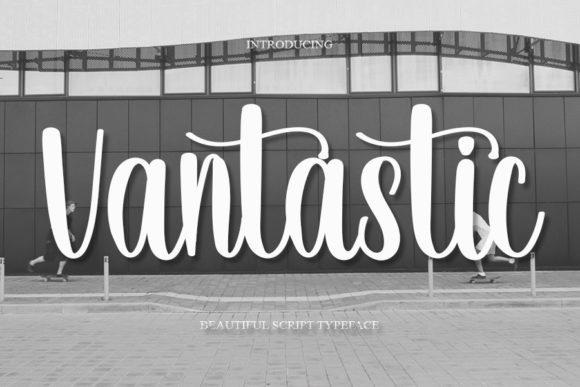
About Vantastic Font
“Vantastic” is a font that radiates style through its elegant handwritten design, infusing a contemporary ambiance with impeccable form. Drawing inspiration from the enduring charm of timeless classic calligraphy, this font seamlessly blends modern aesthetics with timeless grace. It’s important to note that “Vantastic” is PUA encoded, enabling effortless access to all its intricate glyphs and swashes, thus enhancing the versatility of your design.
The allure of “Vantastic” lies in its ability to seamlessly unite contemporary design elements with the timeless appeal of classic calligraphy. This results in a font that exudes sophistication, making it an ideal choice for designs that demand refinement and a touch of distinctiveness.
The versatility of “Vantastic” becomes evident across a variety of design projects. Whether it’s branding, invitations, or other creative endeavors, the font effortlessly adapts to different contexts. Its balanced form adds an air of elegance to logos, allowing brands to convey both sophistication and modernity.
When applied to invitations and stationery, the influence of classic calligraphy shines through, adding a layer of timeless beauty and emotional depth to your designs. For various occasions and events, “Vantastic” enhances the significance of the message and the sentiment behind it.
The PUA encoding feature further enhances the font’s appeal by offering convenient access to an array of glyphs and swashes. This empowers you to personalize and customize your designs with ease, ensuring that each project is a unique reflection of your creative vision.
In summary, “Vantastic” is a font that seamlessly marries classic charm with contemporary design sensibilities. Its flawless form and PUA encoding make it an excellent choice for designers seeking to infuse sophistication and versatility into their projects. Whether you’re working on branding, invitations, or other creative ventures, “Vantastic” brings a timeless elegance that can elevate the impact of your designs.